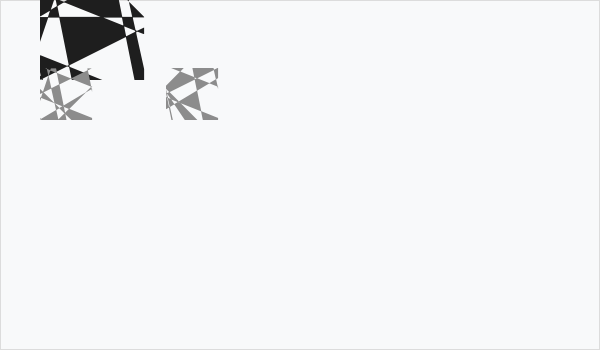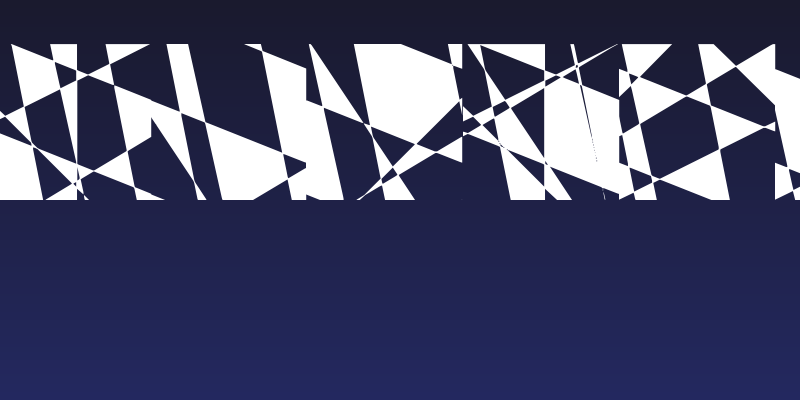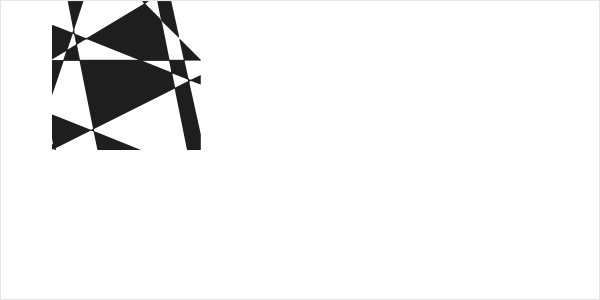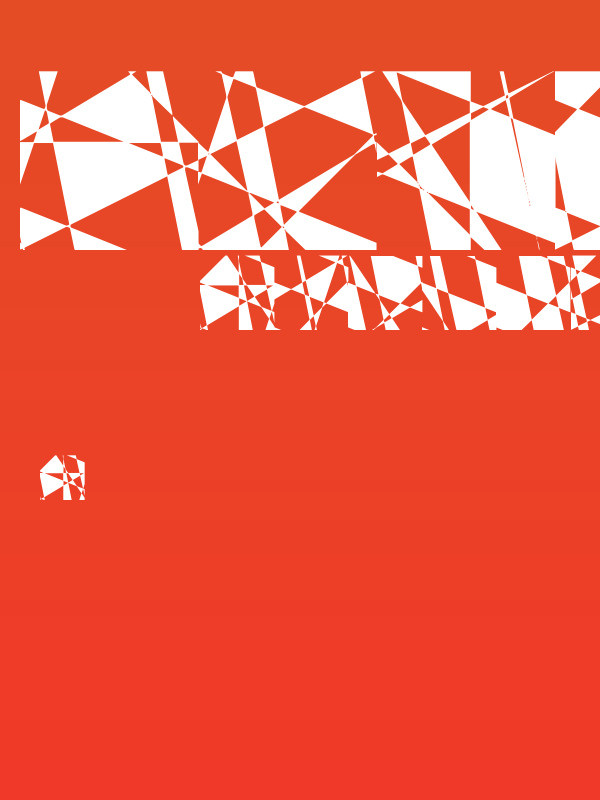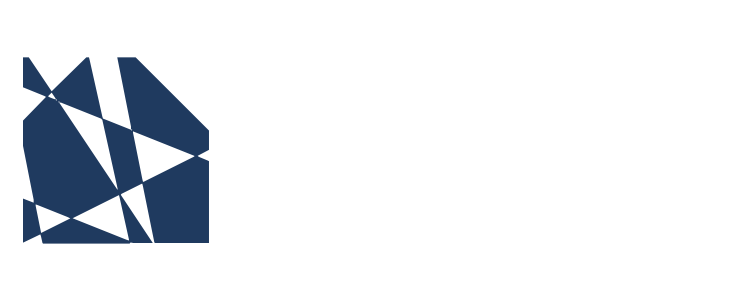
Schizophrenia3 Font
Schizophrenia3 Description
This font features a highly abstract and fragmented design, where each character is composed of intersecting geometric shapes and lines. The letters are barely recognizable, creating a chaotic and artistic appearance. This style is reminiscent of modern art, with a focus on breaking traditional forms and experimenting with visual perception. The font lacks uniformity, with varying stroke thicknesses and angles, contributing to its dynamic and unpredictable nature. It is not suitable for readability in standard text but serves as a bold statement in artistic and experimental design contexts.
| Overall Style | Modern, Abstract |
| Use Case | Artistic displays, Experimental design |
| Proposed Projects | Ideal for experimental art projects, abstract posters, and avant-garde design work. |